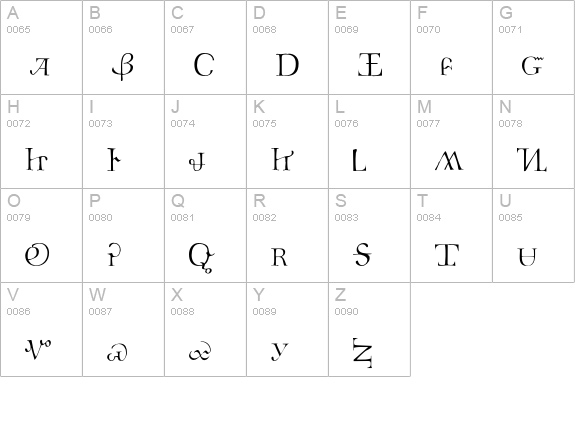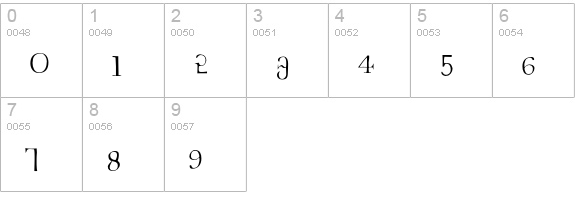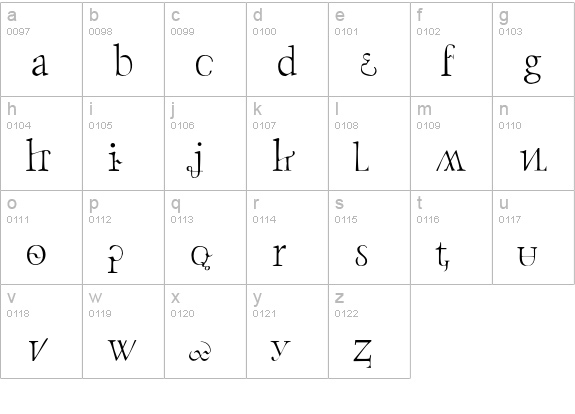
SubluxationDerma Font Details
SubluxationDerma font is a stunning display typeface that exudes elegance and modernity. Its sleek lines and unique letterforms make it perfect for adding a touch of sophistication to any design project. This versatile font is ideal for headings, logos, branding, and more. What sets SubluxationDerma font apart is its seamless blend of modern aesthetics with a hint of classic charm. The clean and sharp design of each character ensures readability and visual impact, making it a standout choice for both digital and print applications. Best of all, SubluxationDerma font is available for free download at FontsMarket.com. Whether you're a seasoned designer looking to refresh your font collection or a newcomer exploring typography for the first time, this font is a must-have addition to your toolkit. Don't miss out on the opportunity to enhance your projects with the timeless beauty of SubluxationDerma font.